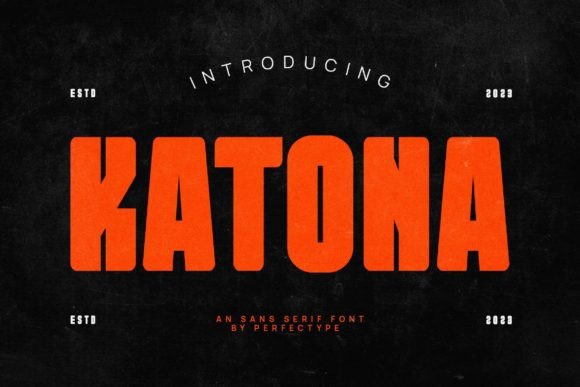
Katona: A Balanced Sans Serif for Modern Web Design
As a UI designer constantly searching for the perfect digital asset, I have found that Katona, a refined Sans Serif within our curated collection of premium Fonts, offers a unique rhythm that is symmetrical and balanced due to a unique mix of different sources of inspiration. When proportions are precisely adjusted with subtle contours and subtle contrasts, the result is a typeface that breathes life into static layouts while maintaining the structural integrity required for high-performance websites. In the fast-paced world of digital product creation, finding a font that balances aesthetic appeal with functional readability is rare, but Katona delivers exactly that harmony for headers, body copy, and brand-focused web experiences.
Katona for High-Conversion Landing Page Headers
When designing a landing page where every pixel must drive action, Katona, as a versatile Sans Serif among top-tier Fonts, stands out because this typeface encapsulates a rhythm that is symmetrical and balanced due to a unique mix of different sources of inspiration. The way its proportions are precisely adjusted with subtle contours and subtle contrasts allows hero titles to command attention without feeling aggressive or cluttered. For SaaS founders and marketers, using Katona in your primary headline creates an immediate sense of trust and professionalism, guiding the user's eye naturally toward the call-to-action button below. Unlike generic display fonts that can feel disjointed on smaller screens, the internal spacing of Katona ensures that even complex value propositions remain legible and impactful across all devices.
Consider a scenario where you are building a sales page for a new digital course; the header needs to promise clarity and expertise. By applying Katona to the main title, you leverage its inherent balance to establish authority instantly. The subtle contrasts in stroke weight add just enough character to differentiate your brand from competitors who rely on standard system fonts, yet the symmetry keeps the design clean and focused. This makes Katona an ideal choice for conversion-focused layouts where visual hierarchy is paramount to guiding the visitor through the sales funnel.
Optimizing Visual Hierarchy with Katona on Mobile Devices
Mobile responsiveness is non-negotiable in modern web design, and Katona, a robust Sans Serif option within the realm of responsive Fonts, excels here because this typeface encapsulates a rhythm that is symmetrical and balanced due to a unique mix of different sources of inspiration. On mobile screens, where space is limited, the fact that its proportions are precisely adjusted with subtle contours and subtle contrasts prevents text from becoming a blur of ink. When users scroll quickly on a smartphone, they scan rather than read deeply; Katona’s clear structure ensures that key information pops out immediately, reducing bounce rates and increasing engagement time.
For designers creating app screens or mobile-first websites, the legibility of Katona at smaller point sizes is a significant advantage. The open counters and well-defined terminals mean that even short phrases or navigation labels remain crisp on high-density displays. Whether you are designing a boutique online store or a coaching website, ensuring your typography scales beautifully from desktop to mobile is essential, and Katona provides that seamless transition without requiring extensive manual kerning adjustments.
Building Brand Identity with Katona in Digital Products
A consistent online identity is the backbone of any successful digital product, and Katona, as a distinctive Sans Serif among professional Fonts, supports this goal because this typeface encapsulates a rhythm that is symmetrical and balanced due to a unique mix of different sources of inspiration. Brands often struggle to find a voice that feels both modern and timeless, but the way proportions are precisely adjusted with subtle contours and subtle contrasts gives Katona a personality that is adaptable yet distinct. It works exceptionally well for logo text, section headings, and even decorative accents in digital brand kits, ensuring that your visual language remains cohesive across social media graphics, email newsletters, and website banners.
If you are launching a creative portfolio or a design agency site, Katona serves as a strong foundation for your brand tone. Its balanced nature suggests reliability and precision, traits that clients look for when hiring a design team. By integrating Katona into your digital assets, you signal to your audience that you pay attention to detail, from the macro layout down to the micro-interactions of your interface. This consistency builds brand recognition over time, making your work instantly identifiable in a crowded marketplace.
Enhancing Readability for Long-Form Content Sections
While many display fonts struggle with extended reading, Katona, a thoughtful Sans Serif selection for content-heavy Fonts, proves its worth because this typeface encapsulates a rhythm that is symmetrical and balanced due to a unique mix of different sources of inspiration. Bloggers and content creators know that if the text is difficult to read, visitors will leave, regardless of how good the article is. Because the proportions are precisely adjusted with subtle contours and subtle contrasts, Katona reduces eye strain during long reading sessions, making it suitable not just for headlines but also for supporting typography in editorial sections.
For online stores with detailed product descriptions or SaaS platforms with feature documentation, the readability of Katona ensures that users stay engaged with your content. The neutral yet characterful design allows the text to recede slightly, letting the information take center stage. This is particularly useful when pairing Katona with other elements; its balanced form does not compete with images or charts, creating a harmonious reading environment that encourages deeper interaction with your material.
Katona Pairing Strategies for Editorial Web Experiences
Creating a sophisticated typographic system requires careful selection, and Katona, a flexible Sans Serif within the ecosystem of modern Fonts, offers excellent pairing opportunities because this typeface encapsulates a rhythm that is symmetrical and balanced due to a unique mix of different sources of inspiration. While Katona shines as a standalone display font, its versatility allows it to pair beautifully with a simple sans serif font for body copy or a classic serif font for a more editorial digital identity. The way its proportions are precisely adjusted with subtle contours and subtle contrasts means it doesn't clash with companion fonts, instead creating a layered depth that elevates the overall design.